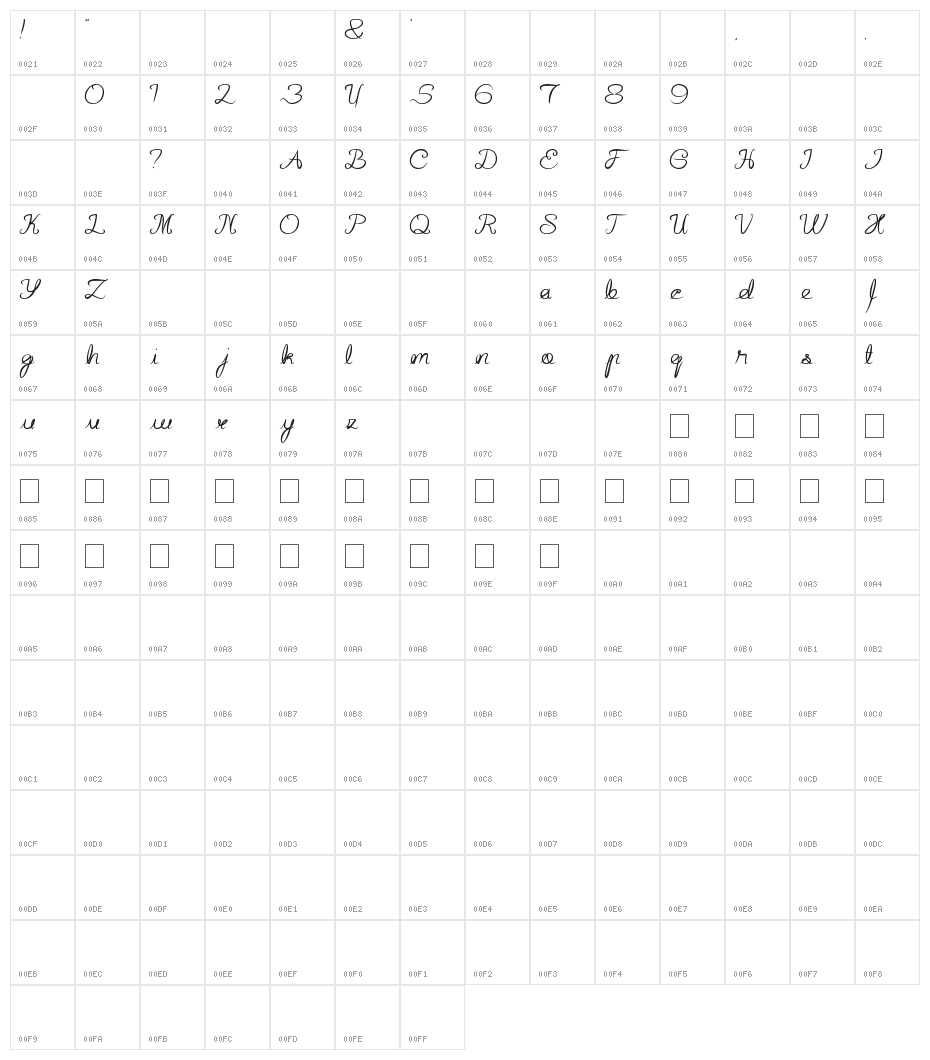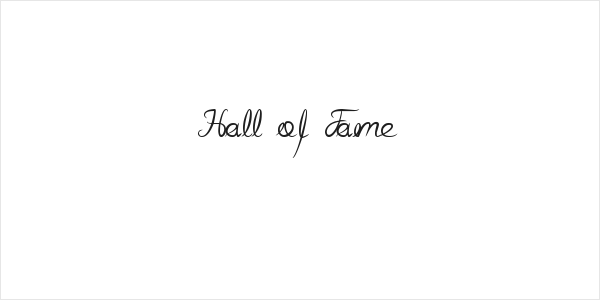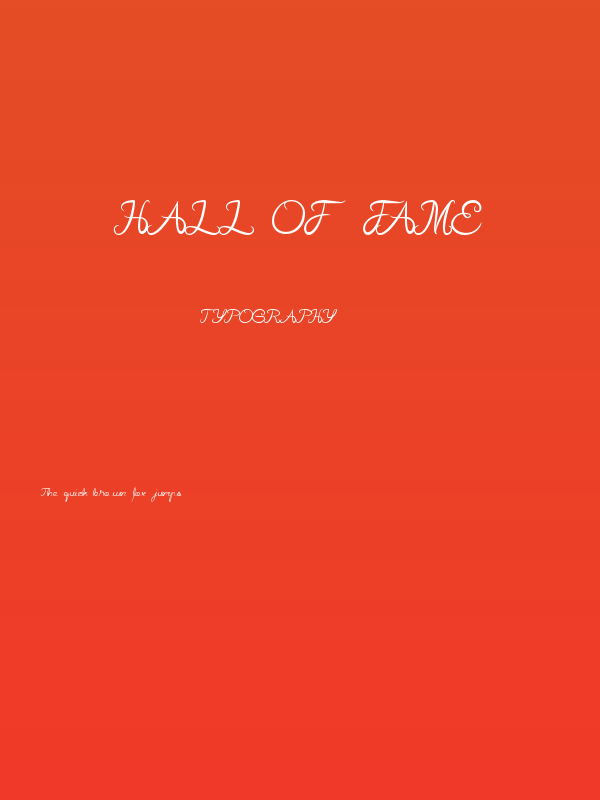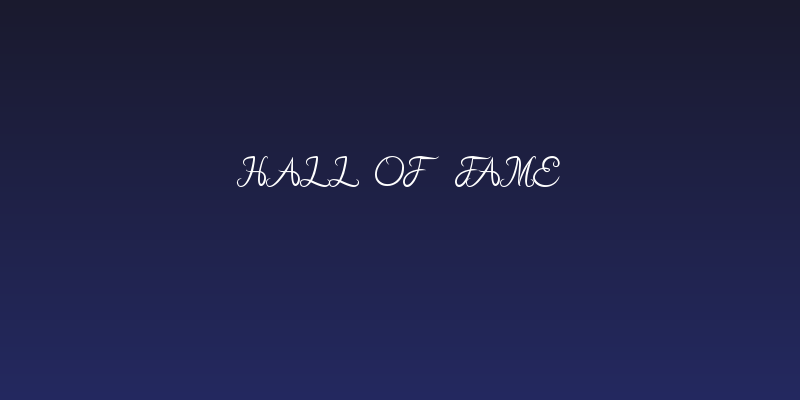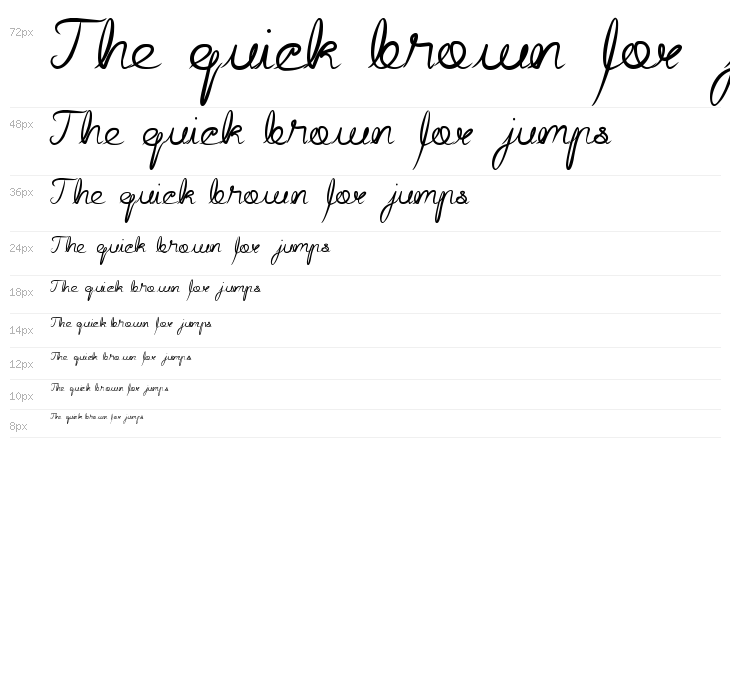
Hall of Fame Font
Hall of Fame Description
This elegant script font features flowing, interconnected letters that mimic the fluidity of handwriting. The uppercase letters are slightly more ornate, with graceful loops and curves, while the lowercase letters maintain a consistent, smooth flow. The numerals are distinct yet harmonize with the overall style, offering a touch of sophistication. Special characters are thoughtfully designed to match the script's aesthetic, making it versatile for various uses. The font's delicate strokes and balanced proportions create a sense of elegance and refinement, ideal for projects that require a personal touch.
Overall StyleElegant, Sophisticated
Use CaseLogos, Invitations, Personal Branding
Proposed ProjectsIdeal for wedding invitations, greeting cards, personal branding, and elegant packaging designs.